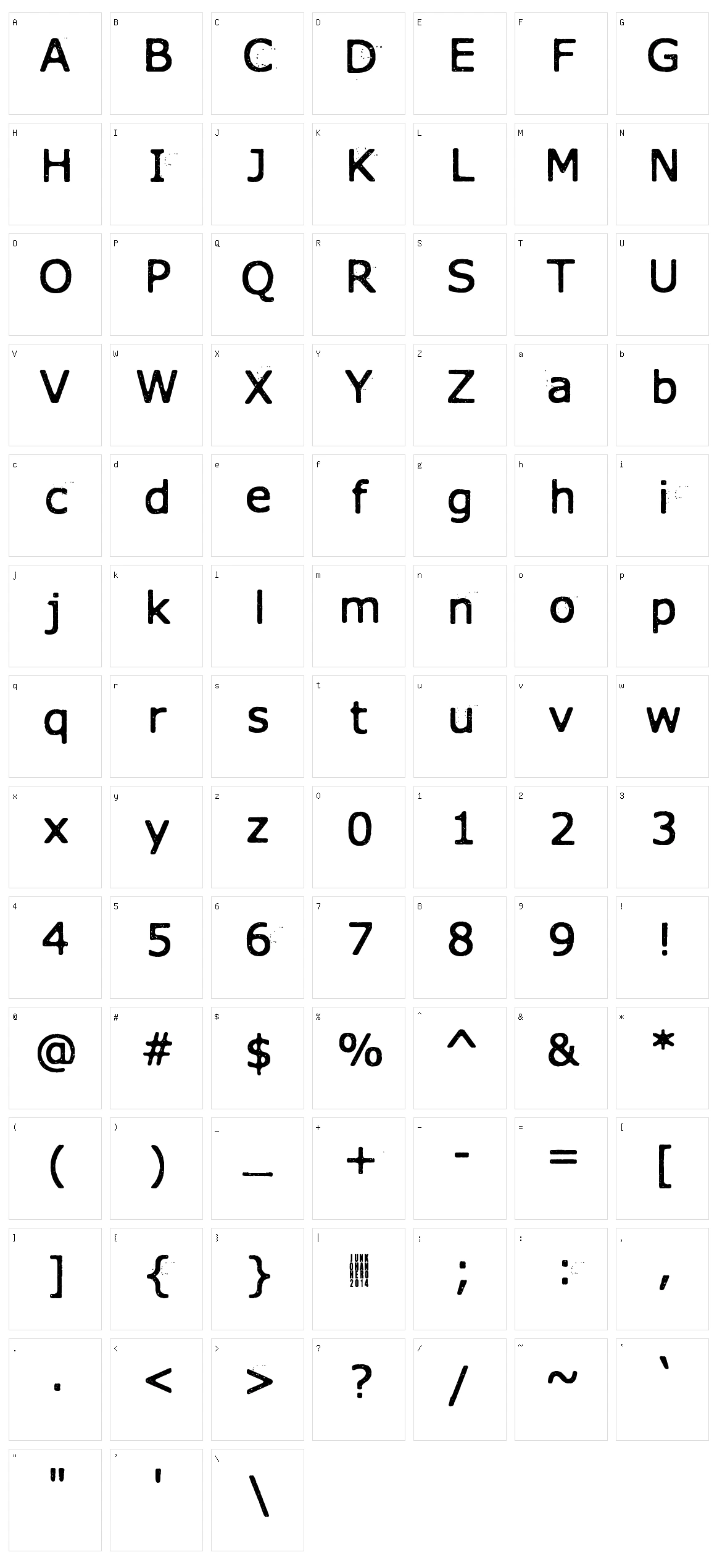
The free font Xmas Year Zero is carefully designed by junkohanhero, showcasing a thoughtful balance of creativity and usability and falls under the Eroded font style. When you download the ZIP file, it contains only 398.14 KB of font files, making it lightweight and quick to download. Please review the license details below to understand permitted usage and distribution rights. If license information is not available, we recommend using this font for personal projects only or contacting the author directly for commercial usage permissions.